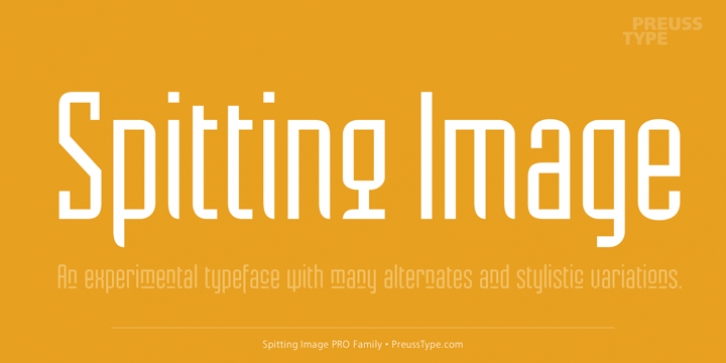
Spitting Image was designed by Ingo Preuss and published by preussTYPE. Spitting Image contains 4 styles and family package options.
SpittingImage is a font which speaks of mechanical exactness, cool and reserved. The SpittingImage font family is formed by two different weights (regular and bold), each one with uppercase and lowercase letters, numbers, punctuation marks and diacritic characters in regular and italic. The outline version included as a part of OpenType-Feature. There are in all styles numerous ligatures, alternate characters, small caps, and different sets of numbers that you can put both headlines and short texts without any problems.